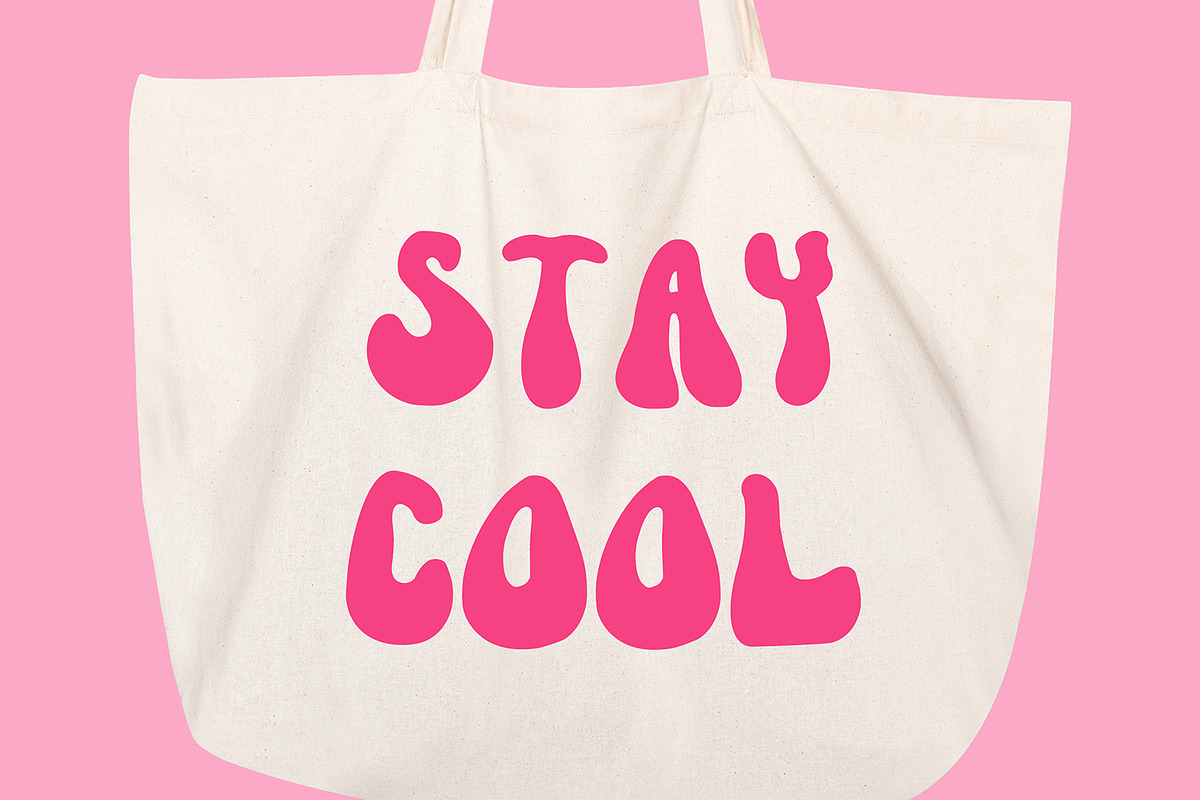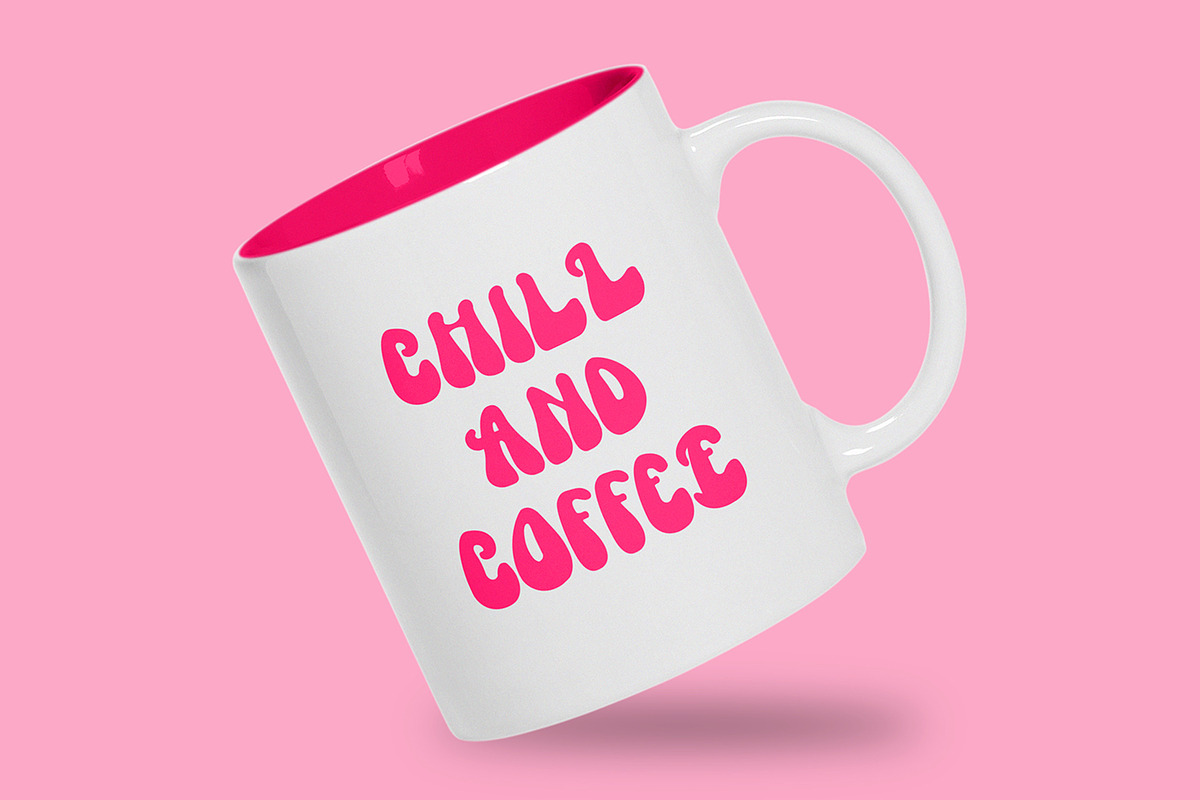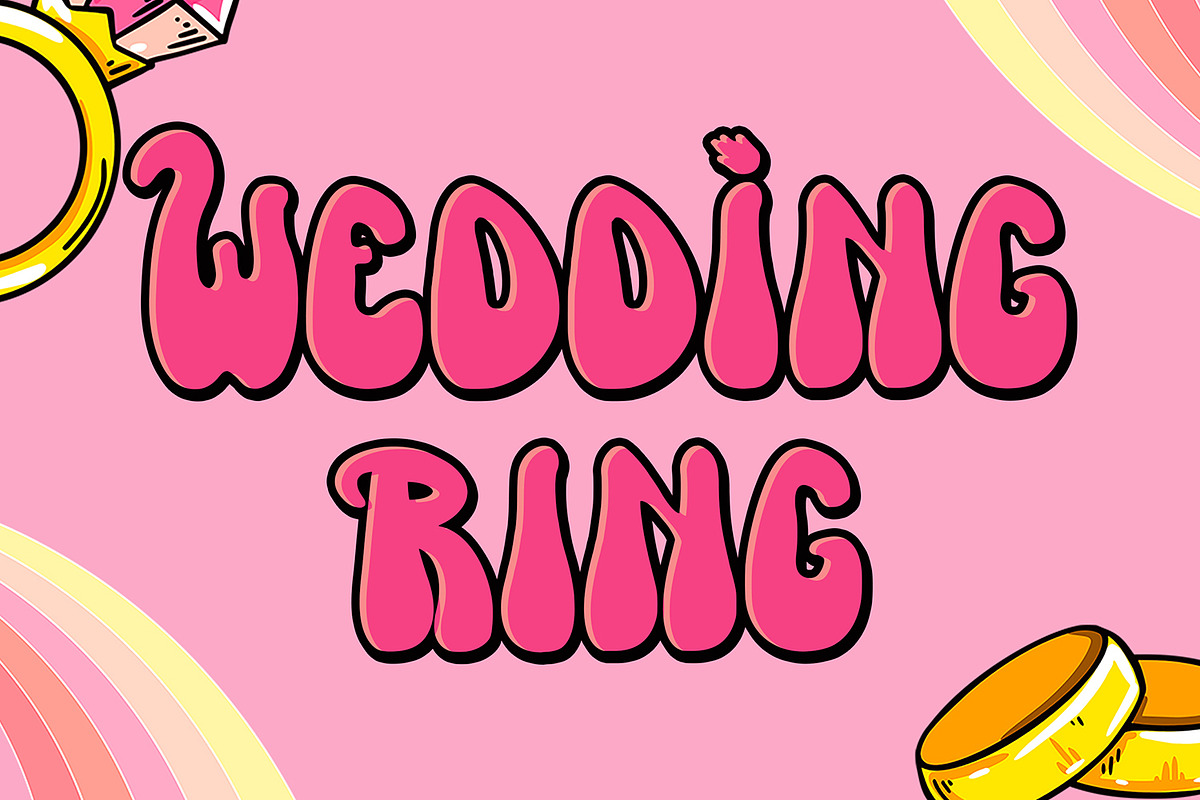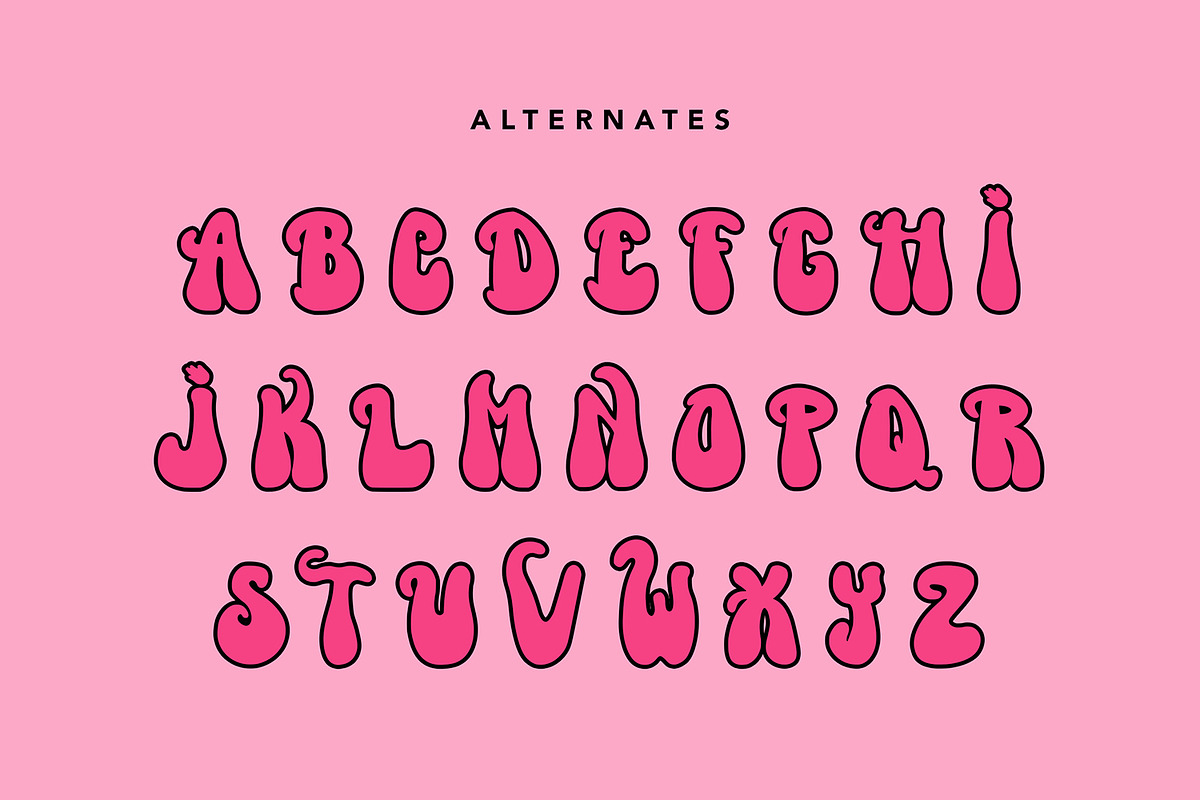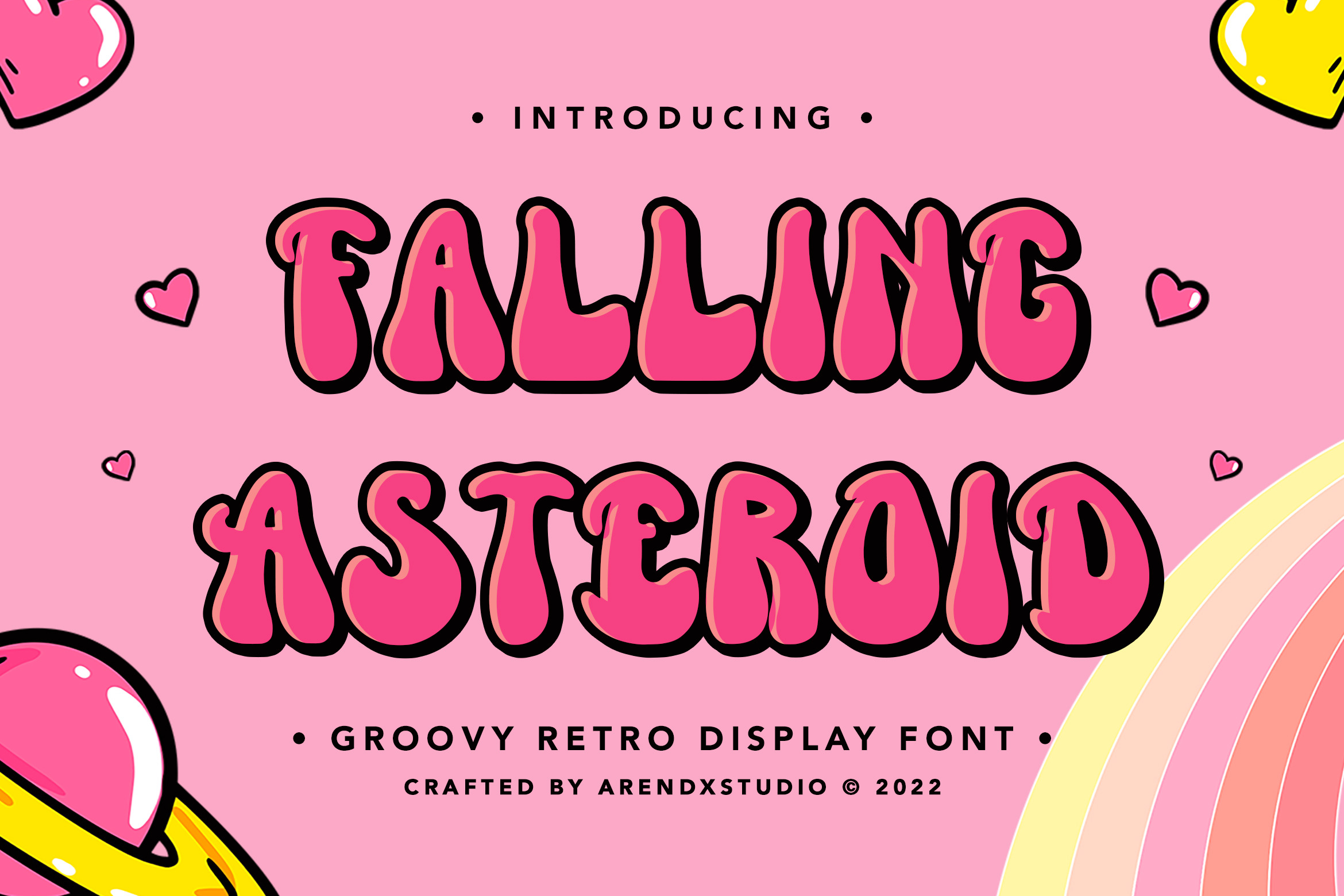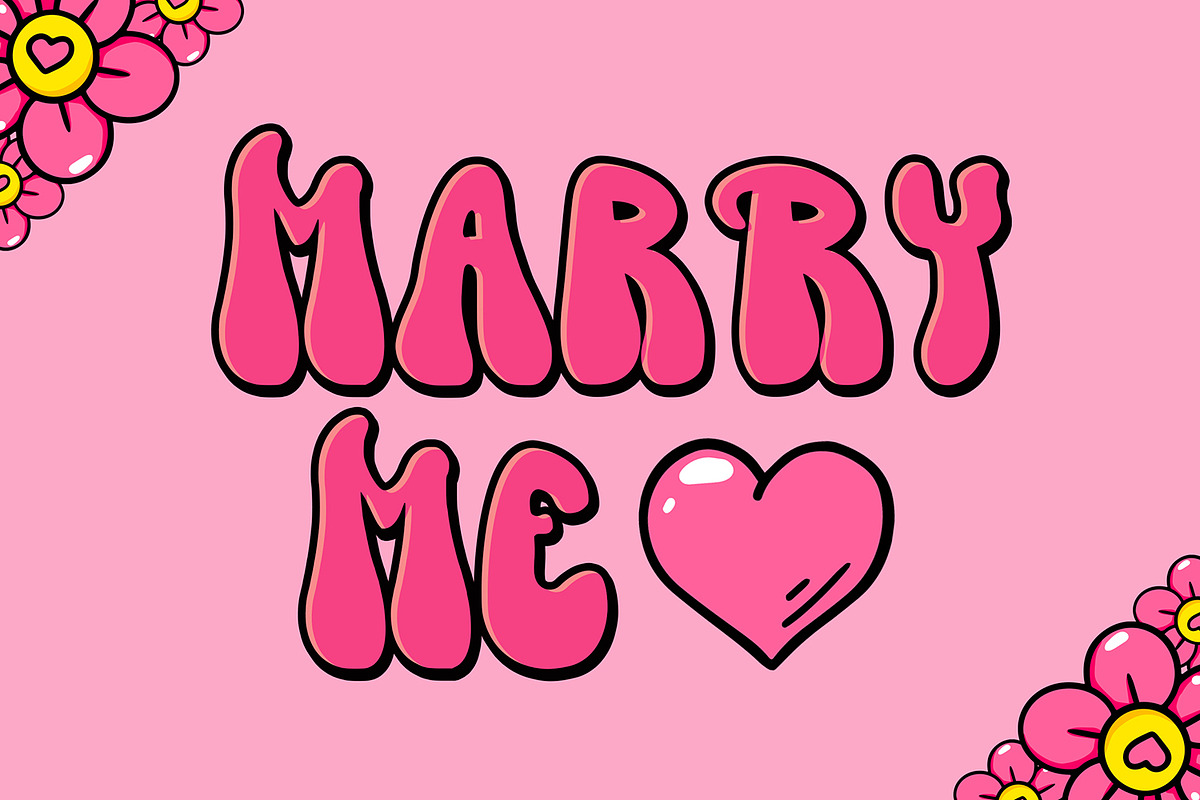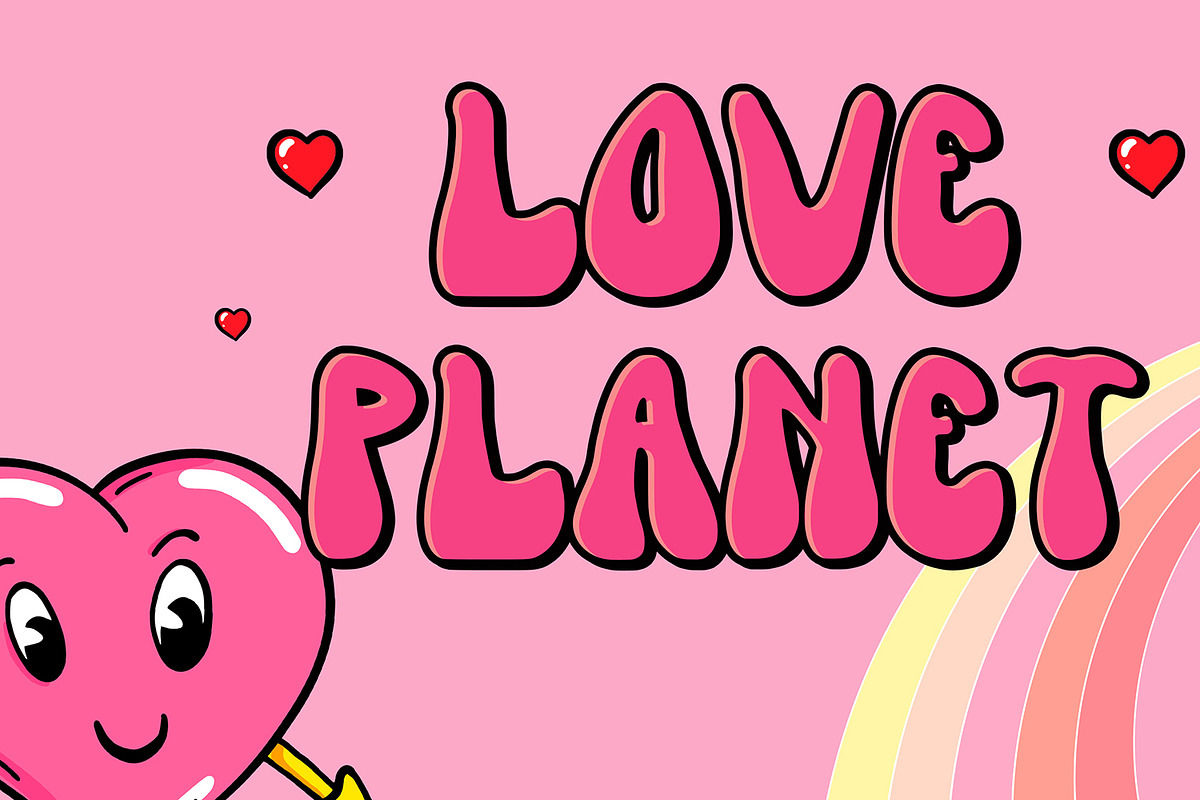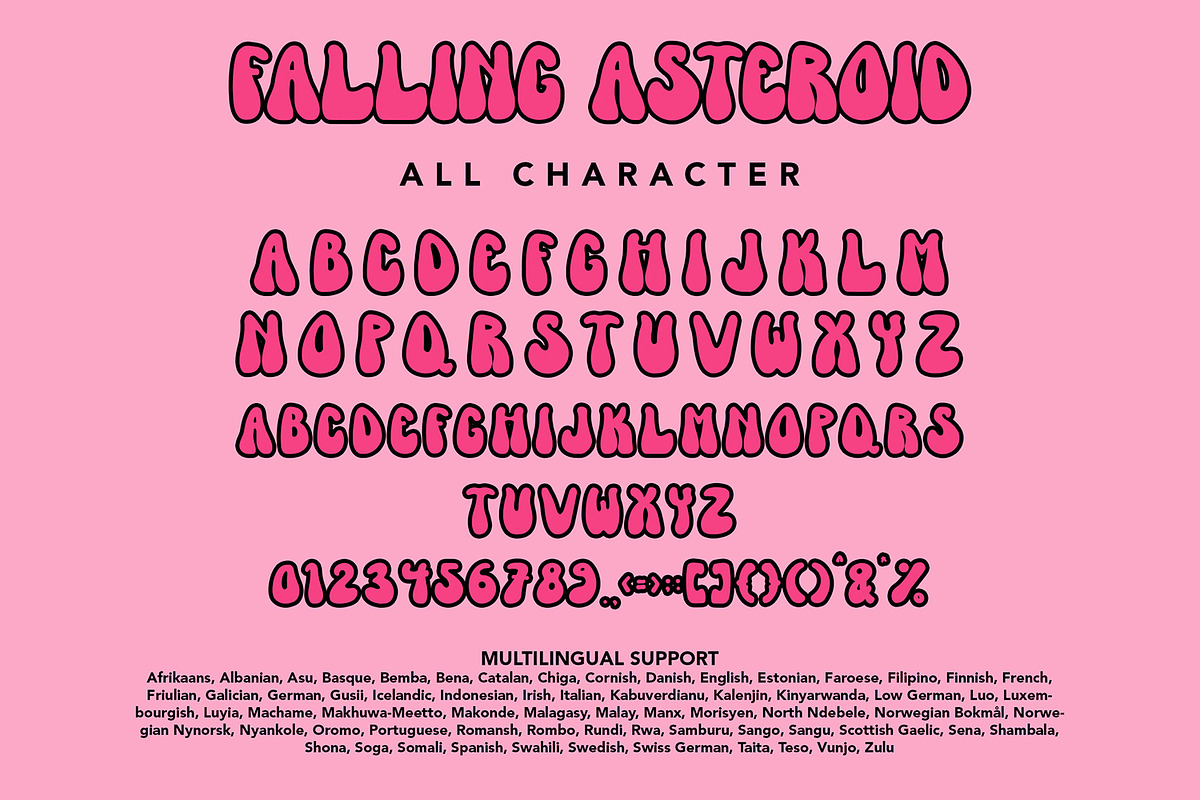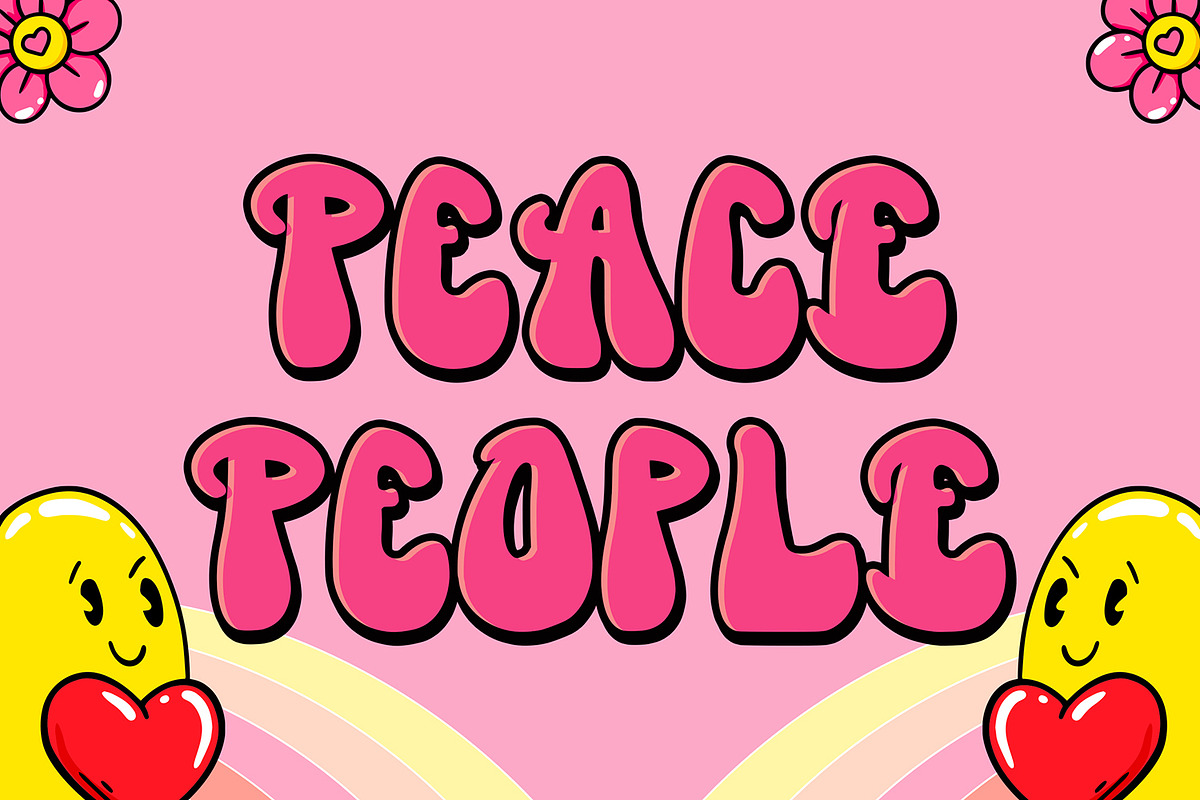
FallingAsteroid - Retro Display Font
FallingAsteroid - Groovy Retro Display Font contains a lowercase, uppercase, symbol, and also supports multi-language. There’s a lot of ligature in this font. FallingAsteroid - Groovy Retro Display Font also comes with ligatures, stylistic alternates and many more. this font suitable for fashion, branding, catalog and other design that you want.